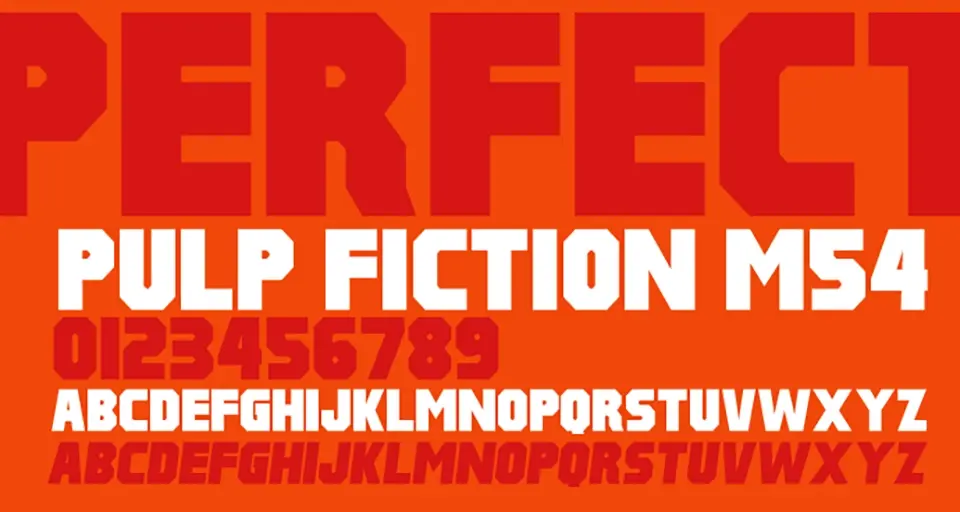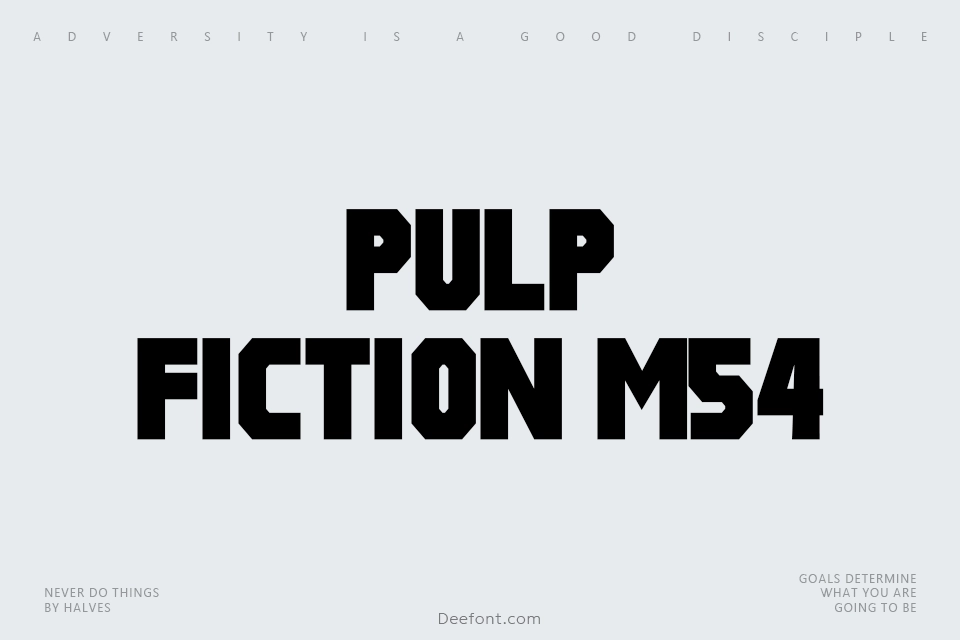
Pulp Fiction M54 Font
Pulp Fiction M54 is a chunky, sharp-edged typeface inspired by collegiate-style designs, featuring bold and distinctive letterforms perfect for headlines and signage. This versatile font combines retro aesthetics with contemporary appeal, offering both regular and italic versions to enhance your creative projects with striking visual impact.